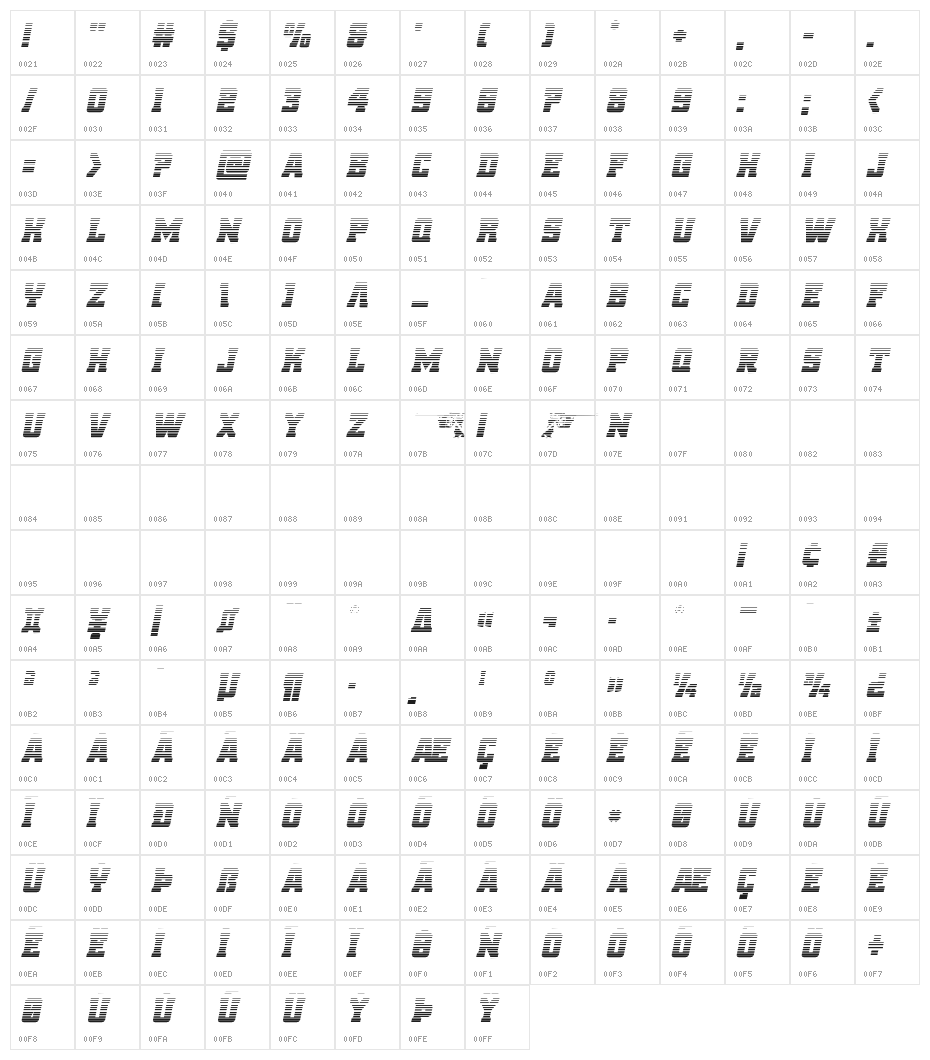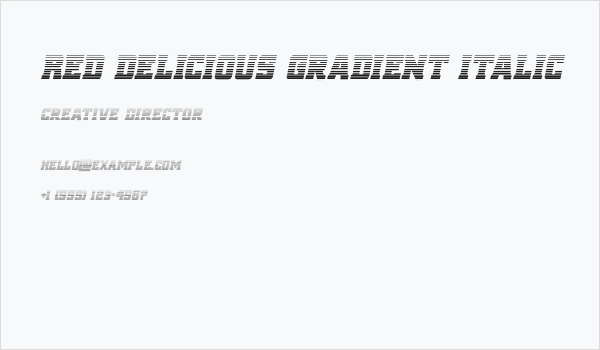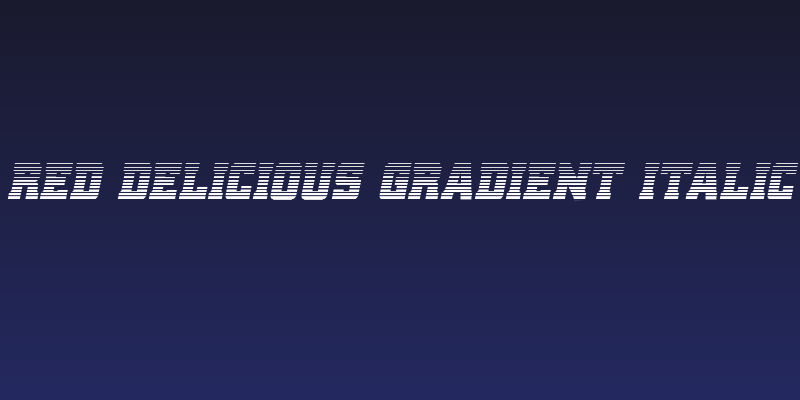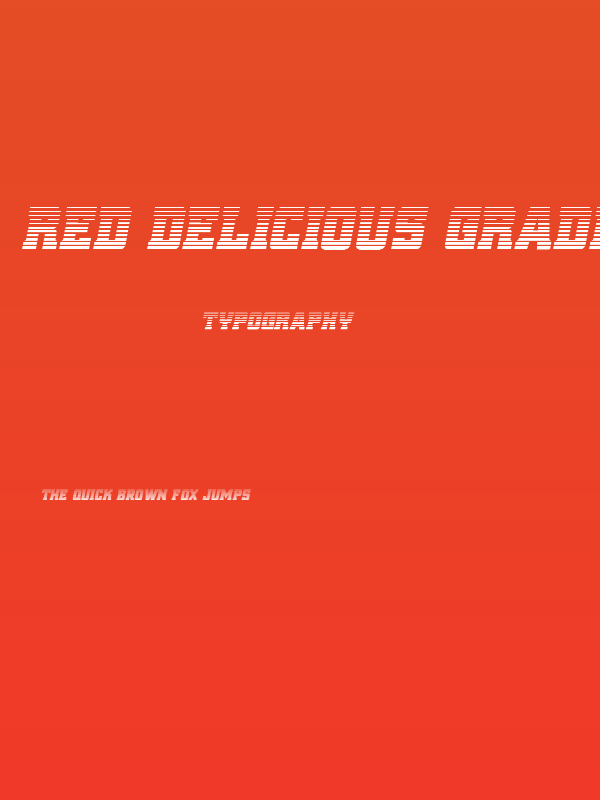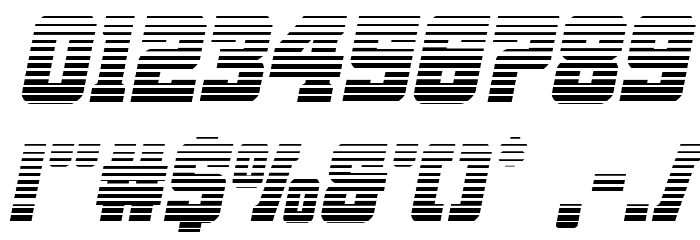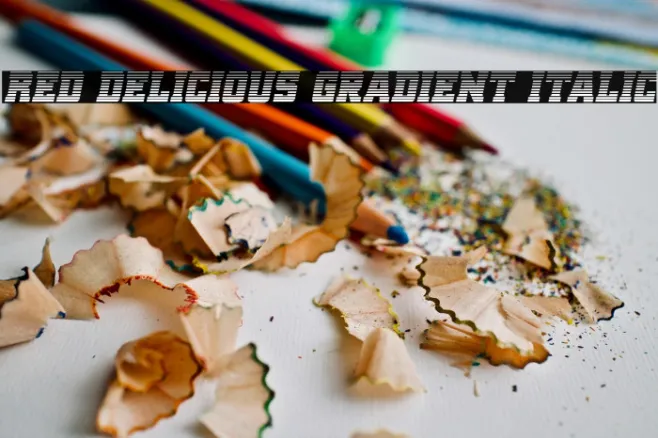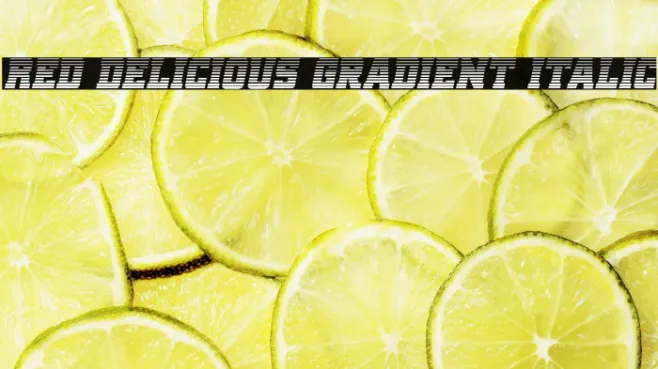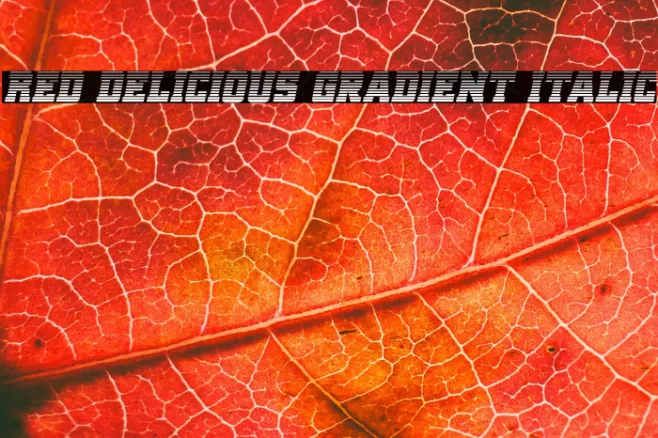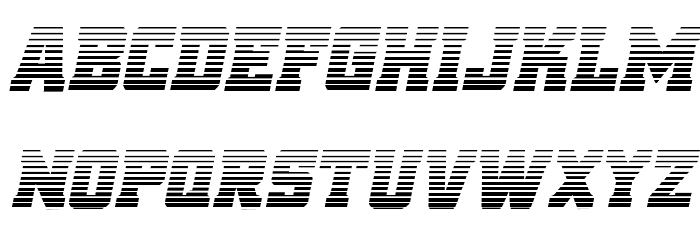
Red Delicious Gradient Italic Font
Red Delicious Gradient Italic Description
This font features a bold, italicized style with a distinctive gradient effect created by horizontal lines that form each character. The uppercase and lowercase letters, as well as numbers and special characters, are designed with a futuristic and dynamic appearance. The slanted orientation adds a sense of motion, making it ideal for projects that require a modern and energetic look. The characters are wide and have a consistent spacing, contributing to its readability despite the decorative elements. The high contrast between the thick and thin lines enhances its visual impact.
| Overall Style | Futuristic, Dynamic |
| Proposed Projects | Ideal for sports branding, tech-related designs, futuristic posters, and dynamic advertising campaigns. |